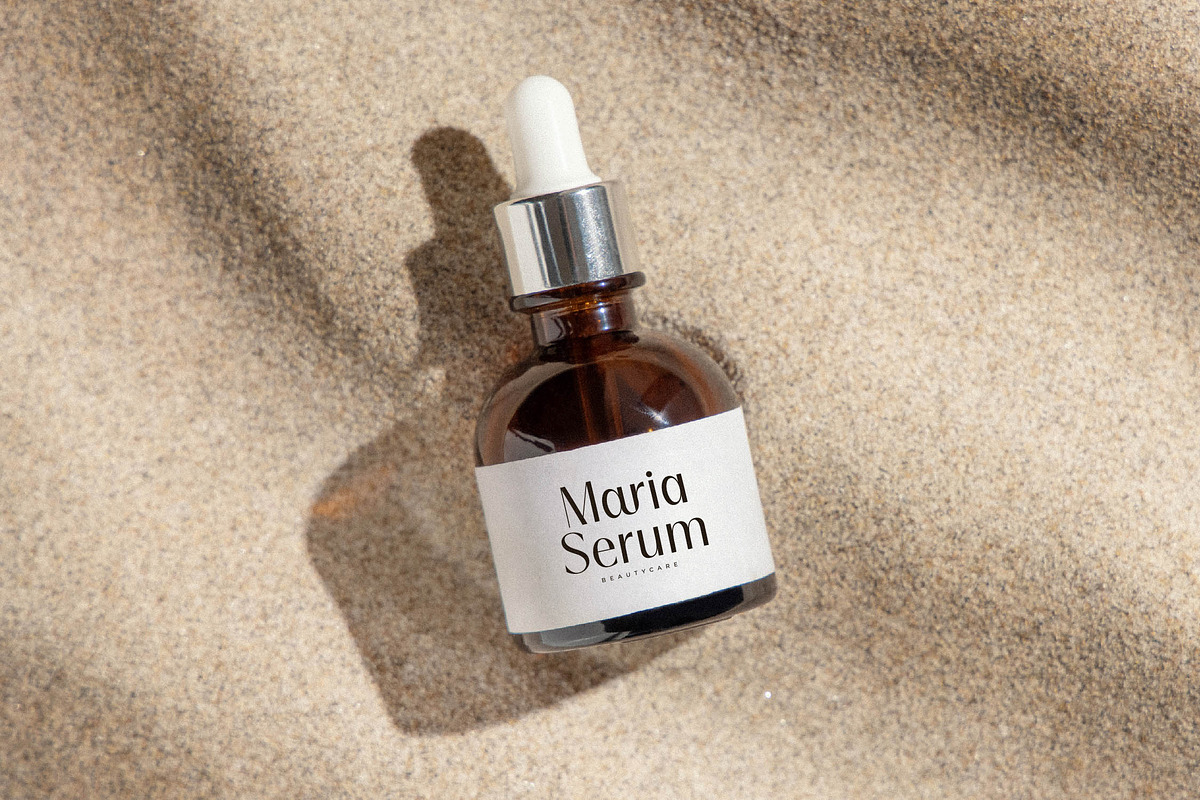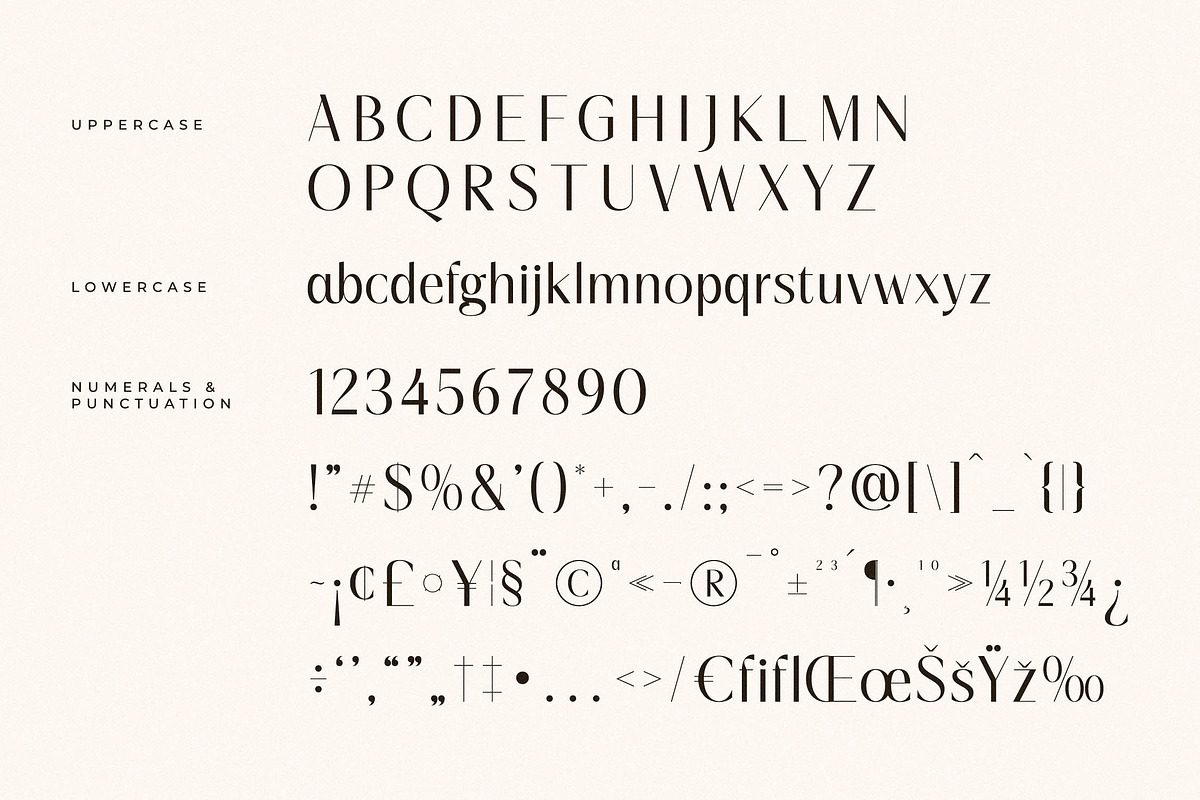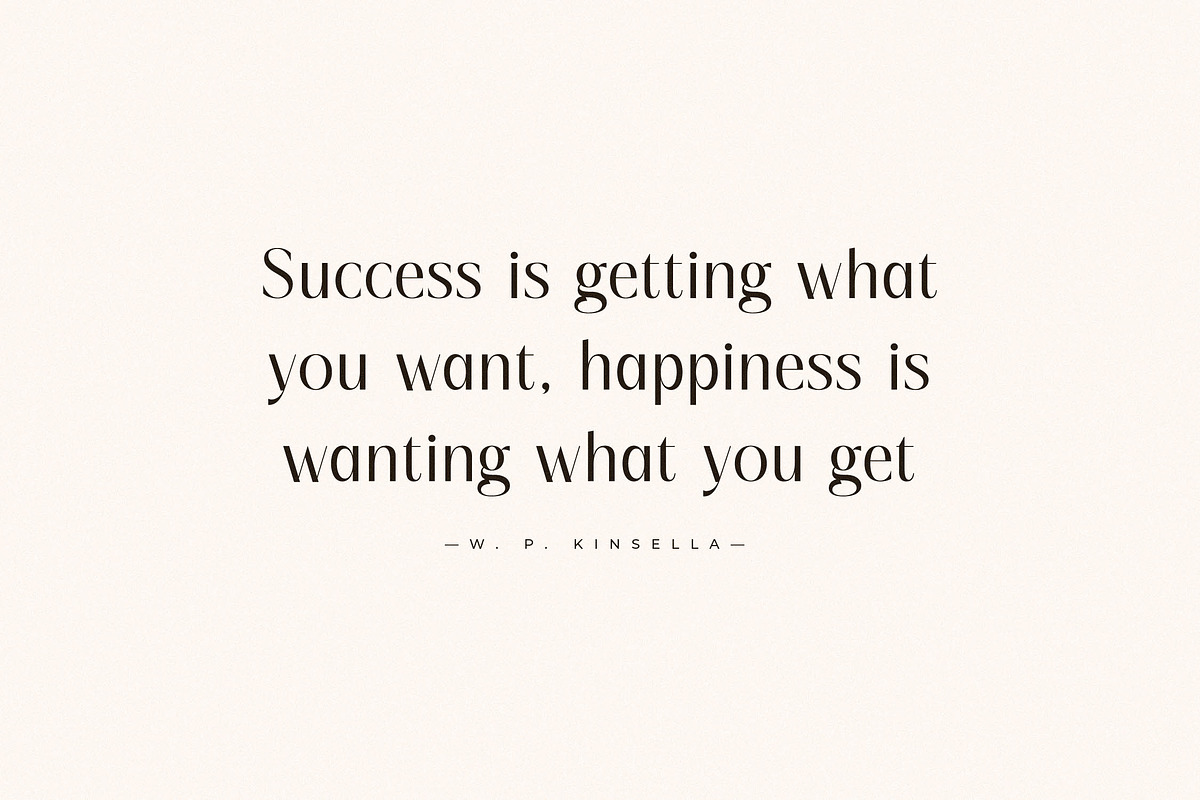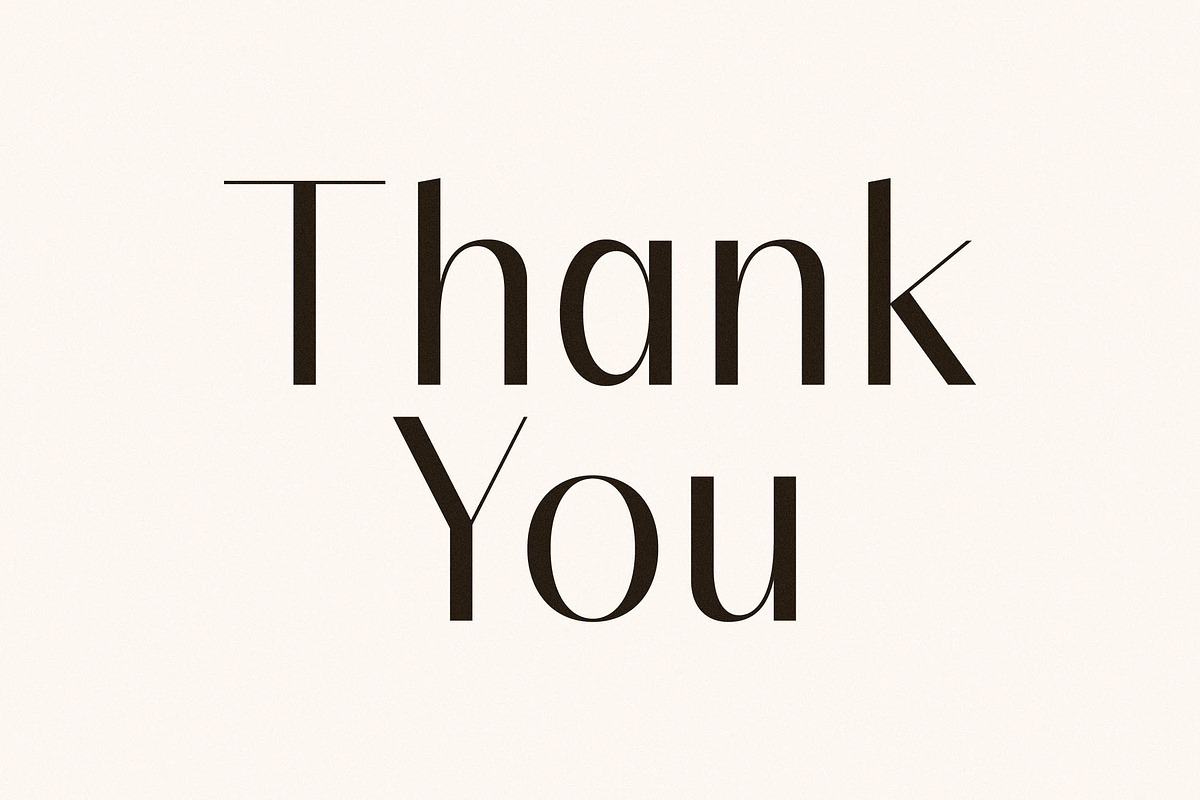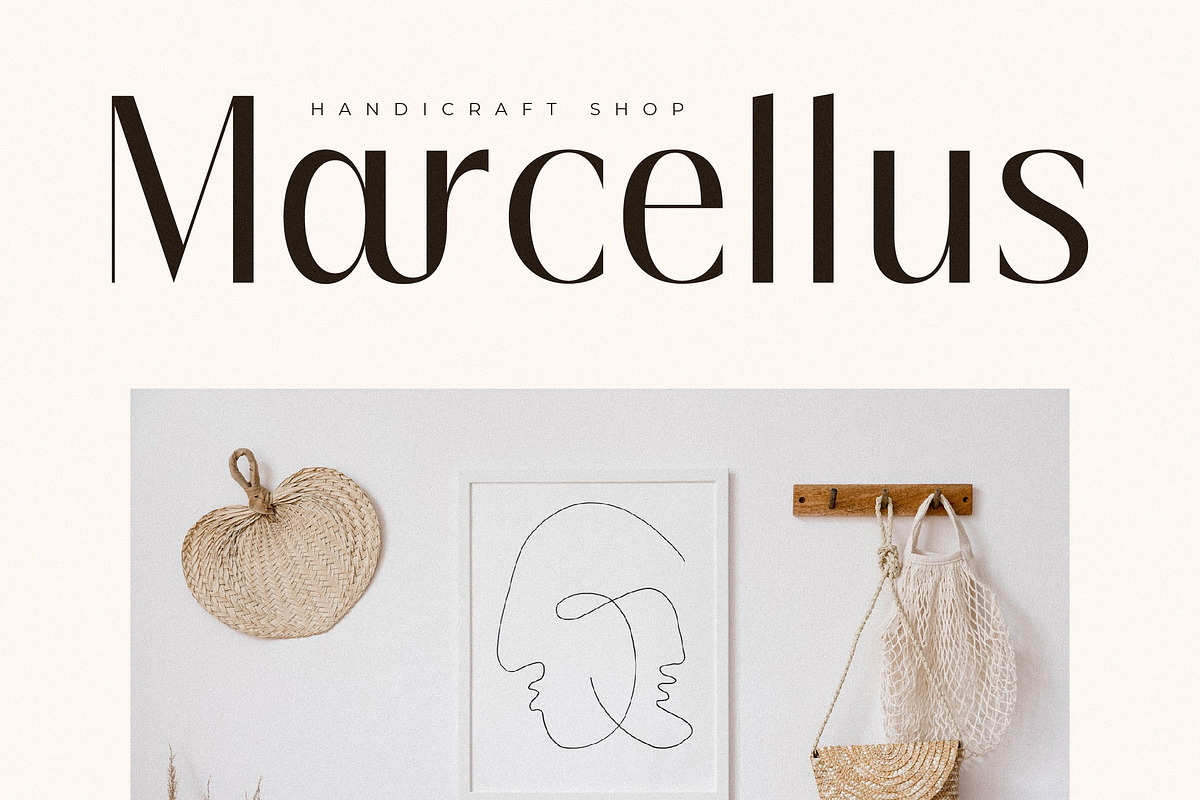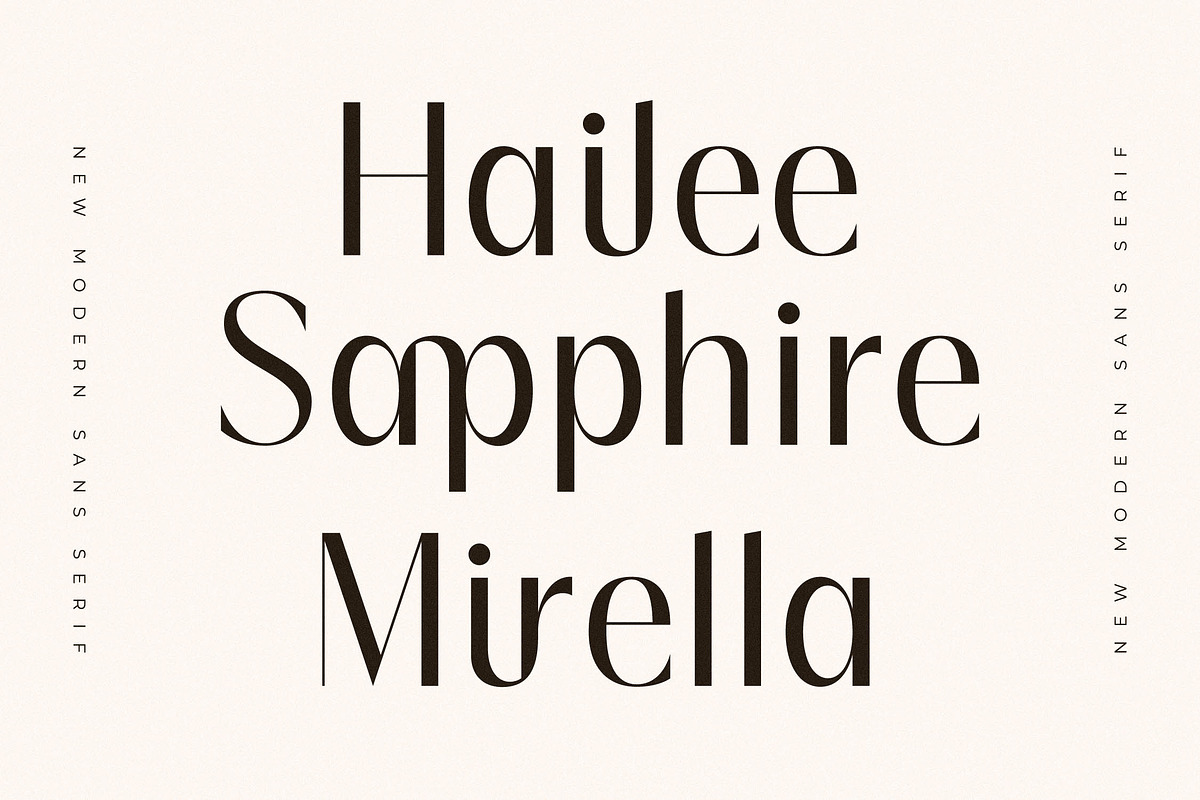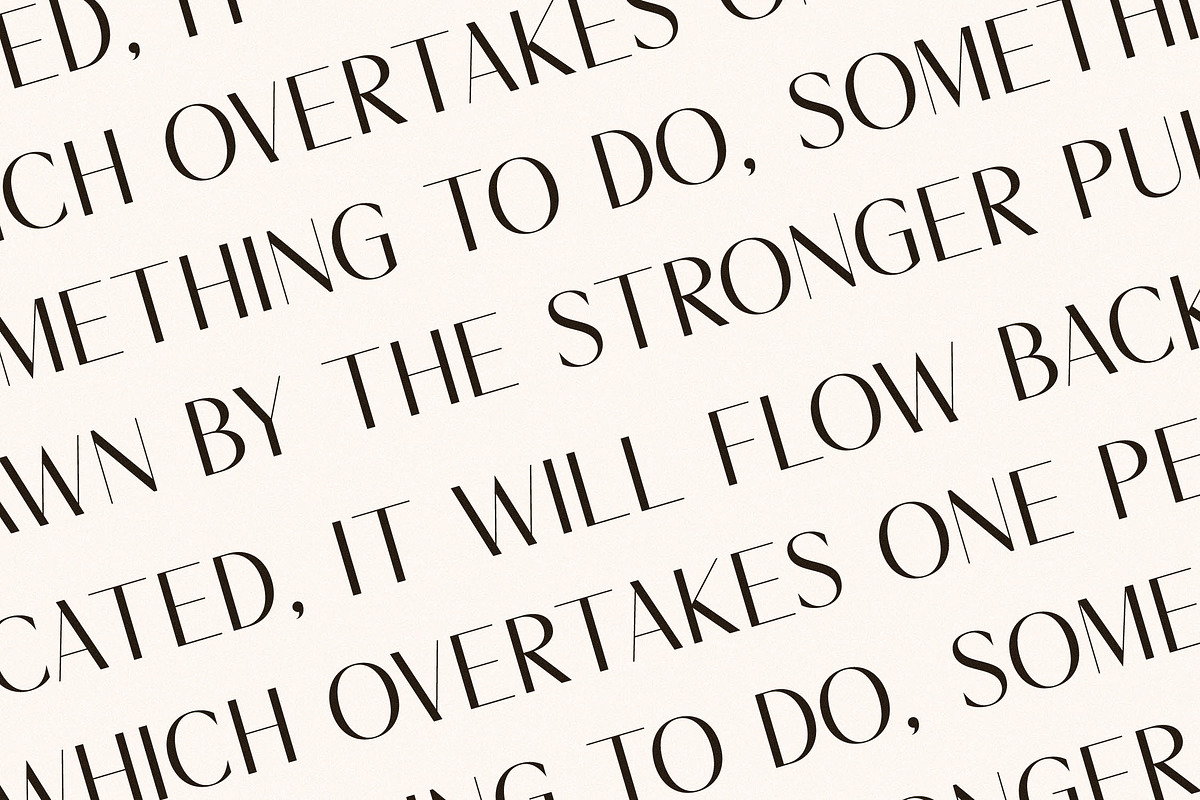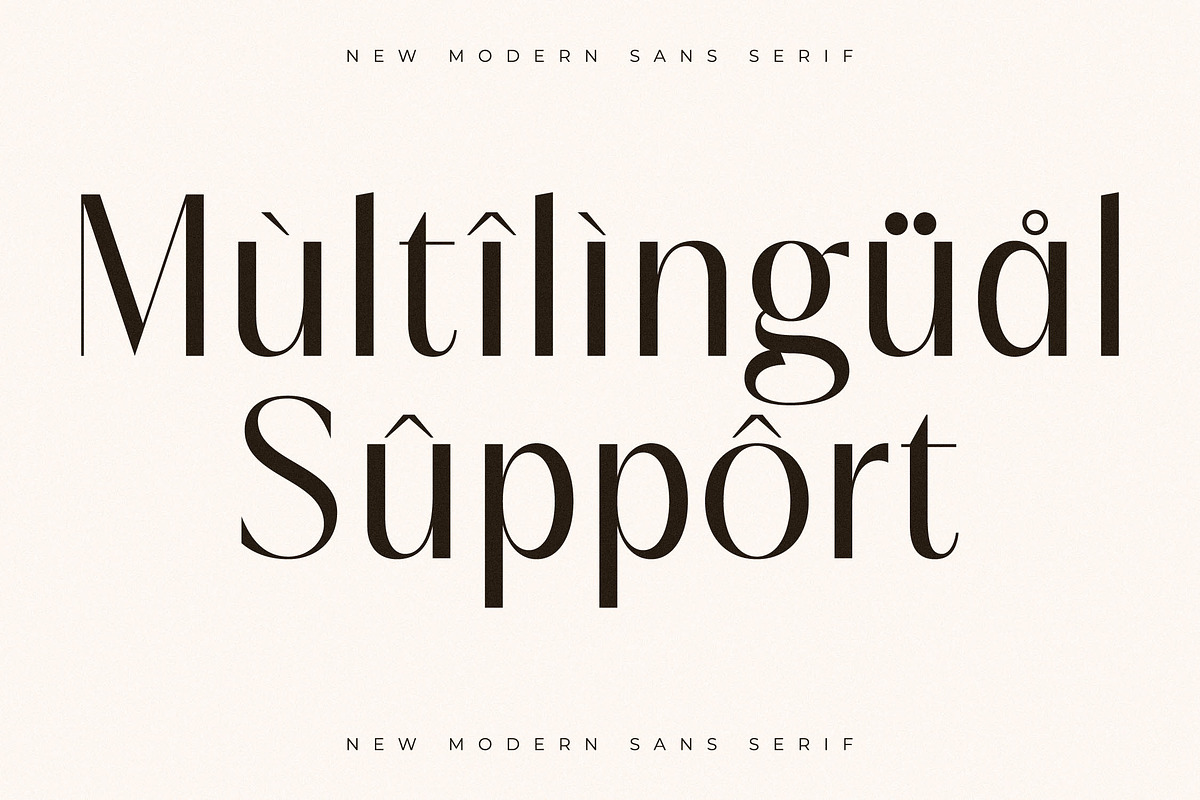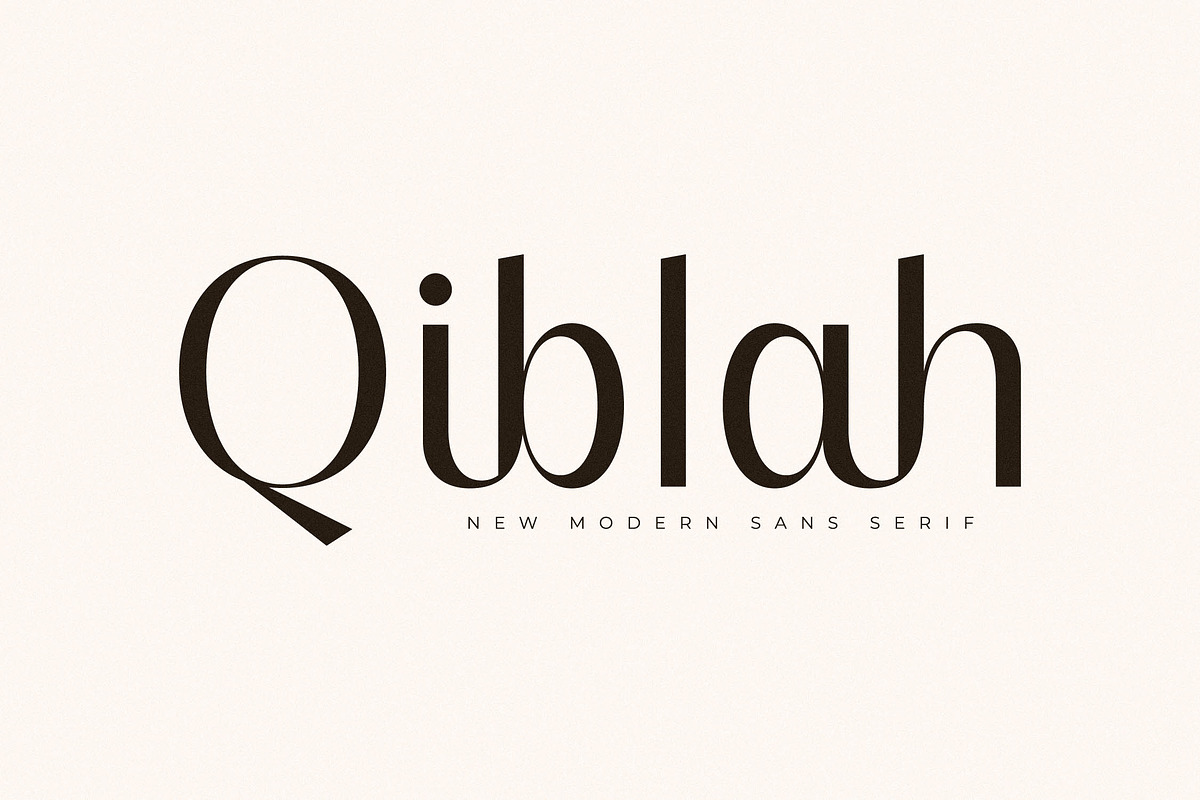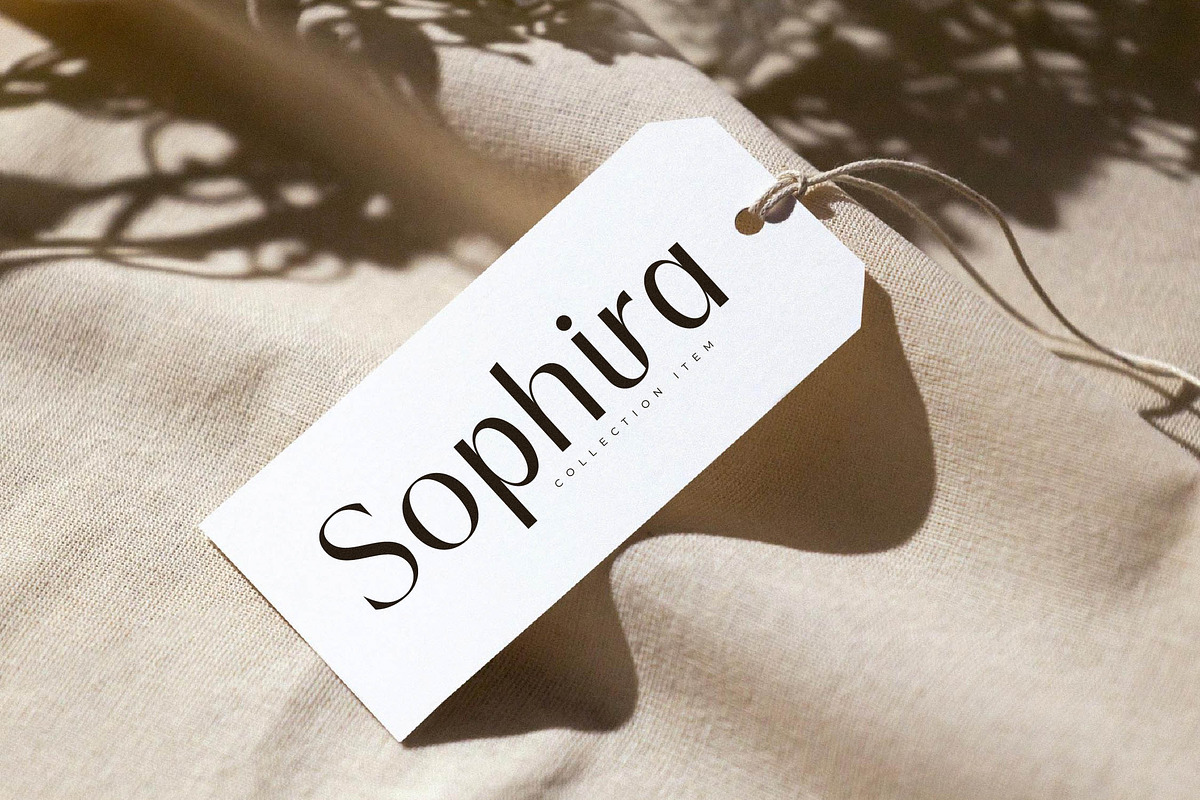
Qiblah New Modern Sans Serif
Proudly present Qiblah Typeface , created by Storytype, A serif modern and classic typeface that has own unique style & modern look. This typeface is perfect for an elegant & luxury logo, book or movie title design, fashion brand, magazine, clothes, lettering, quotes, and so much more.